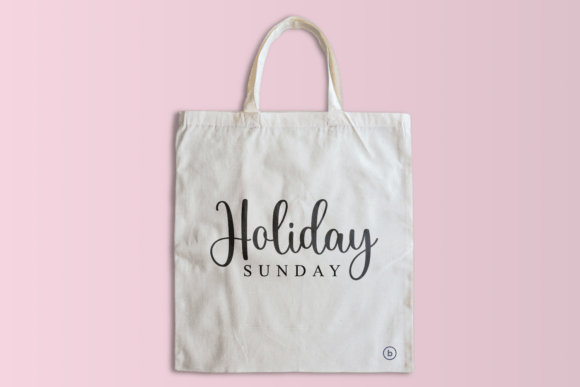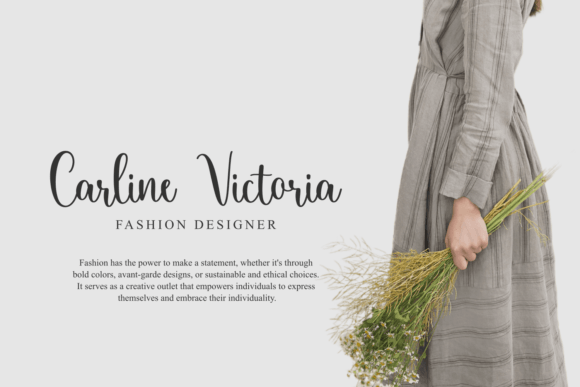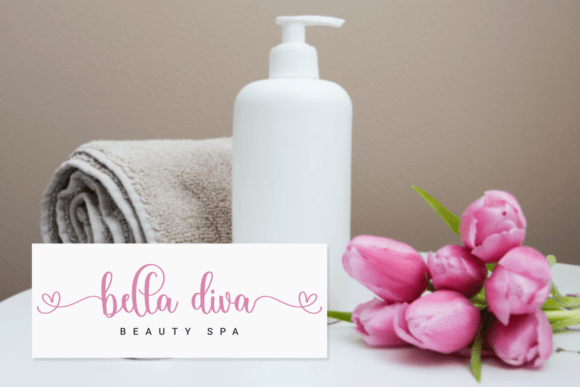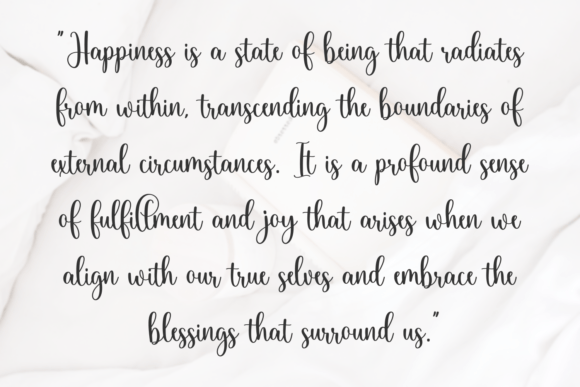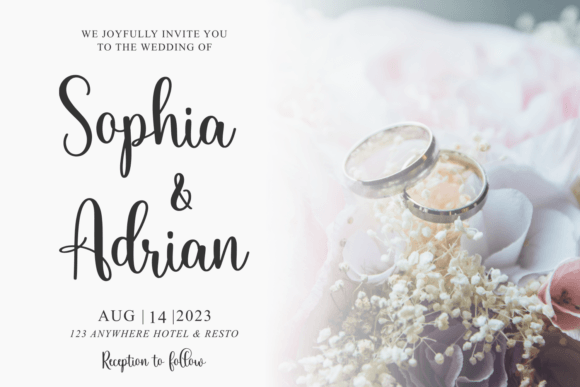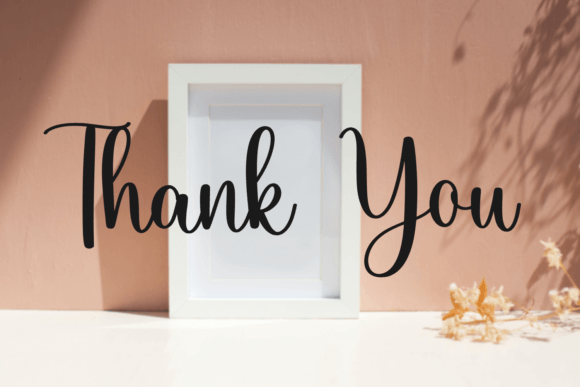
Dallena Font: The Epitome of Elegance and Sophistication
In the realm of typography, few fonts manage to convey the essence of beauty and gentleness as effortlessly as Dallena Font. This lovely calligraphy font has been making waves in the design community, and for good reason. With its smooth and flowing writing style, Dallena is the perfect choice for projects that require a romantic, feminine, or luxurious atmosphere.
The Beauty of Dallena Font
Dallena Font is a masterclass in elegance. Each stroke of its letters exudes a sense of softness and sophistication, making it an ideal choice for designers who want to add a touch of refinement to their work. Whether you’re creating a wedding invitation, a fashion brand logo, or a luxury product advertisement, Dallena Font is sure to impress.
One of the standout features of Dallena Font is its PUA (Private Use Area) encoding. This means that users can access all glyphs and swashes with ease, giving them unparalleled creative control over their designs. With Dallena Font, you can effortlessly add flourishes and embellishments to your text, taking your designs to the next level.
Perfect for Romantic and Feminine Projects
Dallena Font is particularly well-suited for projects that require a romantic or feminine touch. Its flowing script and delicate letterforms evoke a sense of whimsy and charm, making it perfect for:
- Fashion brand logos and advertisements
- Beauty and cosmetics packaging
- Luxury product branding
Whether you’re designing for a client or working on a personal project, Dallena Font is sure to bring a touch of elegance and sophistication to your work.
Why Designers and Crafters Love Dallena Font
So, what sets Dallena Font apart from other calligraphy fonts on the market? Here are just a few reasons why designers and crafters are falling in love with this beautiful font:
- Ease of use: Dallena Font is incredibly easy to use, even for those who are new to calligraphy fonts. Its PUA encoding makes it simple to access all glyphs and swashes.
- Versatility: Dallena Font is incredibly versatile, making it suitable for a wide range of projects and applications.
- Unique and distinctive: Dallena Font has a unique and distinctive look that sets it apart from other calligraphy fonts on the market.
Tips for Using Dallena Font
To get the most out of Dallena Font, here are a few tips to keep in mind:
- Use it sparingly: While Dallena Font is beautiful, it can be overwhelming if used excessively. Use it sparingly to add a touch of elegance to your designs.
- Experiment with swashes: Dallena Font’s PUA encoding makes it easy to access a range of swashes and glyphs. Experiment with different combinations to add visual interest to your designs.
- Pair it with complementary fonts: Dallena Font pairs beautifully with a range of fonts, from serif and sans serif fonts to other script fonts. Experiment with different pairings to find the perfect combination for your project.
In conclusion, Dallena Font is a beautiful calligraphy font that is sure to bring a touch of elegance and sophistication to your designs. With its smooth and flowing writing style, PUA encoding, and versatility, Dallena Font is the perfect choice for designers and crafters who want to add a touch of romance, femininity, or luxury to their work. So why wait? Give Dallena Font a try today and see the difference it can make in your designs!